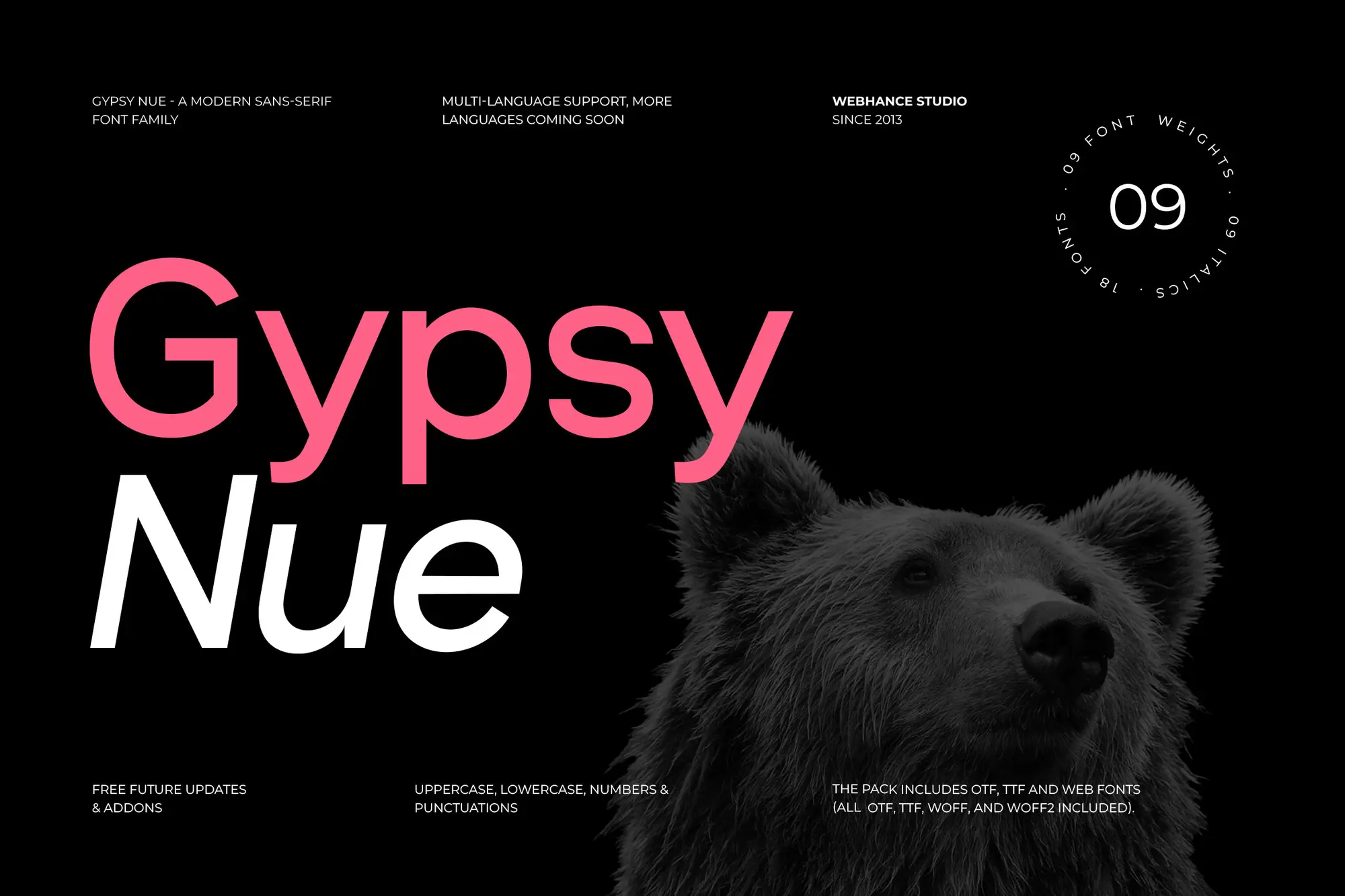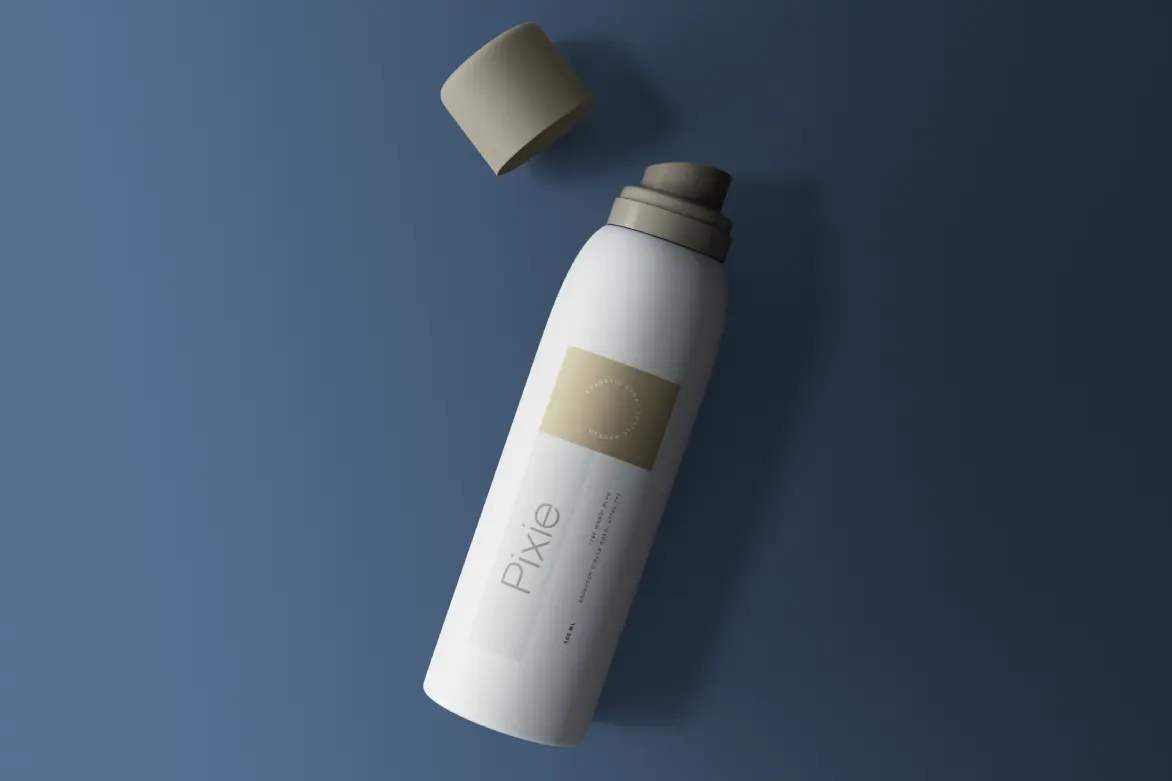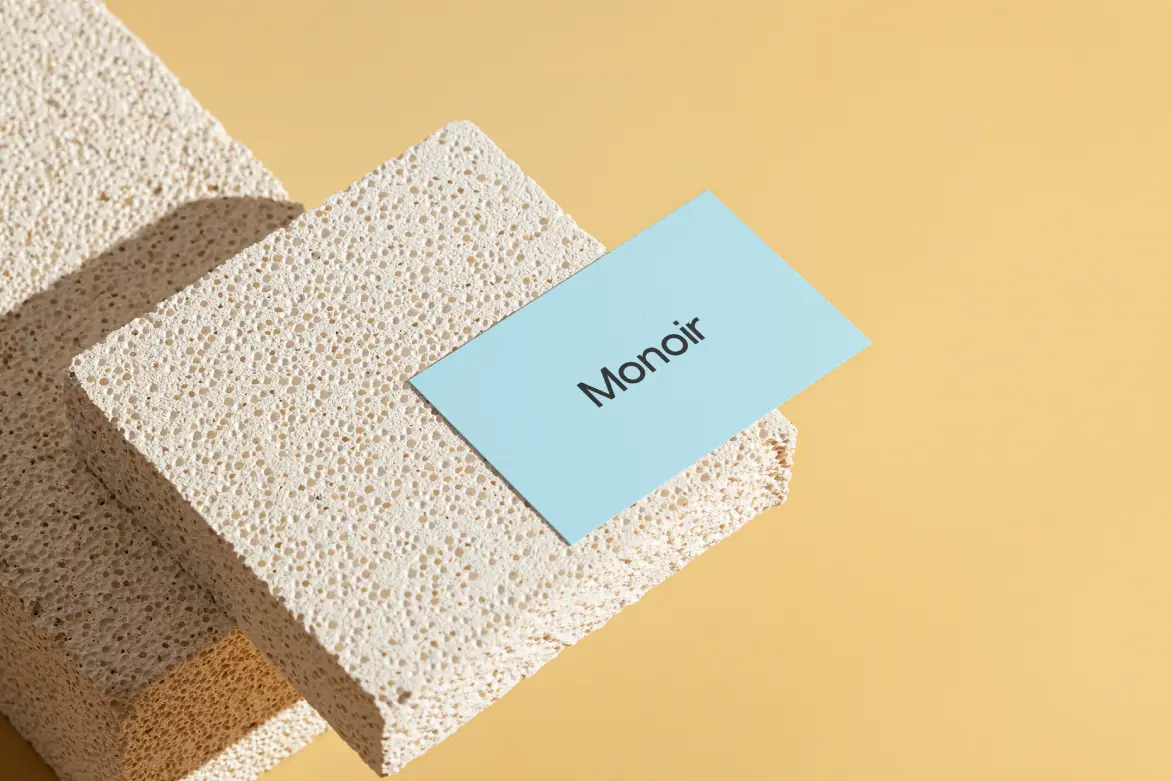
Gypsy Nue
Overview
Gypsy Nue is a modern sans-serif font that blends minimalism with a creative edge. Designed for versatility, it excels in both digital and print applications, making it ideal for branding, social media, and various design projects.
Design Traits
- Geometric shapes provide a clean, contemporary look.
- Generous spacing enhances readability across sizes.
- A balanced tone suits both formal and casual contexts.
- Strong character shapes maintain clarity in motion graphics.
Key Features
- Multiple weights and italics available.
- Extensive character support for multilingual use.
- Optimized for print and screen performance.
Best Use Cases
- Engaging social media posts and stories.
- Eye-catching Instagram and TikTok graphics.
- Dynamic titles for motion graphics and videos.
- Professional branding materials and logos.
- Captivating posters and magazine layouts.
Why Designers Choose Gypsy Nue
- Its minimal style fits a range of projects.
- High readability ensures effective communication.
- Versatile enough for various design applications.
- Strong visual identity enhances brand recognition.
- Ideal for both digital and print formats.